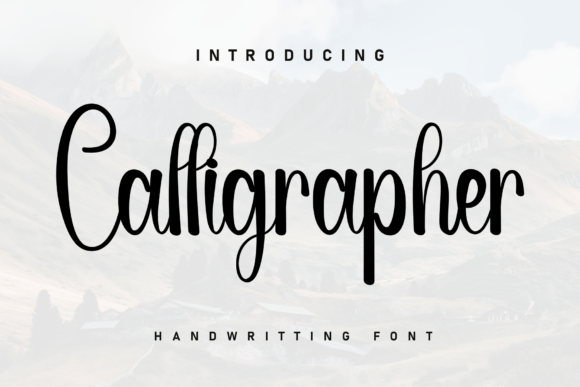
The Elegant Charm of Calligrapher Font: A Designer’s Delight
I still remember the time I was working on a wedding invitation project, and my client asked for a font that exuded luxury, elegance, and a touch of casual charm. I scoured the internet, tried countless fonts, but nothing seemed to fit the bill. That’s when I stumbled upon the Calligrapher font. It was love at first sight! 💕
With its smooth, marker-like strokes, Calligrapher added a relaxed yet sophisticated touch to the invitation. It was perfect for branding, logos, and even the wedding stationery. In this article, I’ll share my experience with Calligrapher font, its features, and how to make the most of it in your designs.
An Honest Review of Calligrapher Font
What I Love About Calligrapher Font ✨
- 💫 Unique and elegant look: Calligrapher font has a distinct, hand-drawn feel that sets it apart from other fonts.
- ✅ Versatile: Suitable for various design projects, from branding and logos to wedding supplies, greeting cards, and marketing promotions.
- 🌈 Easy to read: Despite its elegant look, Calligrapher font remains clear and readable, even in smaller sizes.
- 👍 Great for headlines and titles: The font’s stylized letters make it perfect for grabbing attention and adding a touch of sophistication to your designs.
- ⚠️ Limited use for body text: While Calligrapher font is great for headlines, it may not be the best choice for longer blocks of text.
- ⚠️ May not work well with all design styles: Calligrapher’s elegant look might clash with more minimalist or bold design styles.
The Story Behind Calligrapher Font
Calligrapher font was designed with the intention of mimicking the fluid strokes of a marker. The creator aimed to produce a font that was both elegant and approachable, suitable for a wide range of design projects. While the exact story behind the font’s creation might be unknown, its versatility and charm have made it a favorite among designers.
Q: What makes Calligrapher font unique?
A: Calligrapher font’s unique, hand-drawn look and smooth strokes set it apart from other fonts.
Q: Is Calligrapher font suitable for body text?
A: While it’s primarily designed for headlines and titles, Calligrapher font can be used for short paragraphs, but may not be ideal for longer blocks of text.